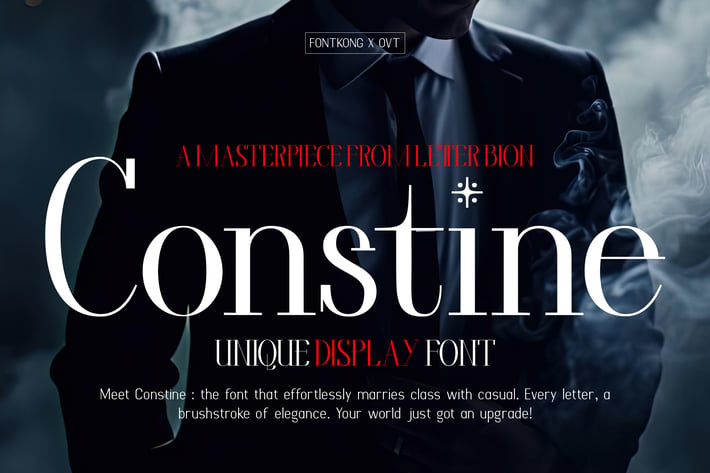
Constine - Unique Display Font
Introducing "Constine," a unique display font that commands attention and sparks creativity. Perfect for graphic designers, typographers, and creatives who want to make a bold statement, Constine offers an eye-catching and distinctive typeface that stands out in any project.
Ideal for posters, headlines, logos, packaging, and branding, Constine’s striking and unconventional characters provide a dynamic and memorable aesthetic. Each letter is meticulously crafted to ensure visual impact and readability, making your designs both captivating and effective.
The "Constine" font includes a complete set of uppercase and lowercase letters, numbers, punctuation marks, and special characters. This versatility allows for seamless integration into various design projects, from impactful posters to unique logos.
Elevate your designs with Constine, the unique display font that unleashes creativity and makes a lasting statement.